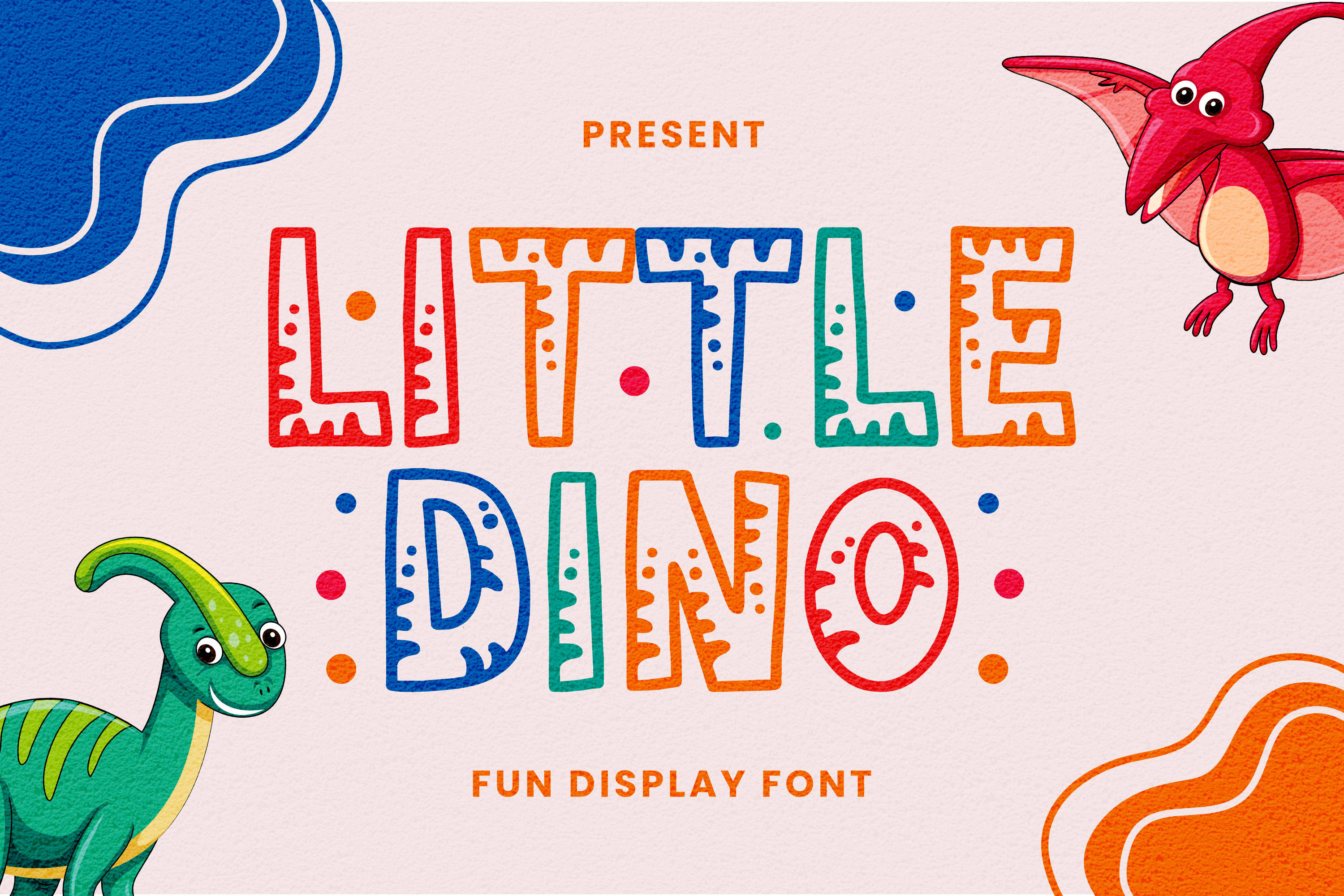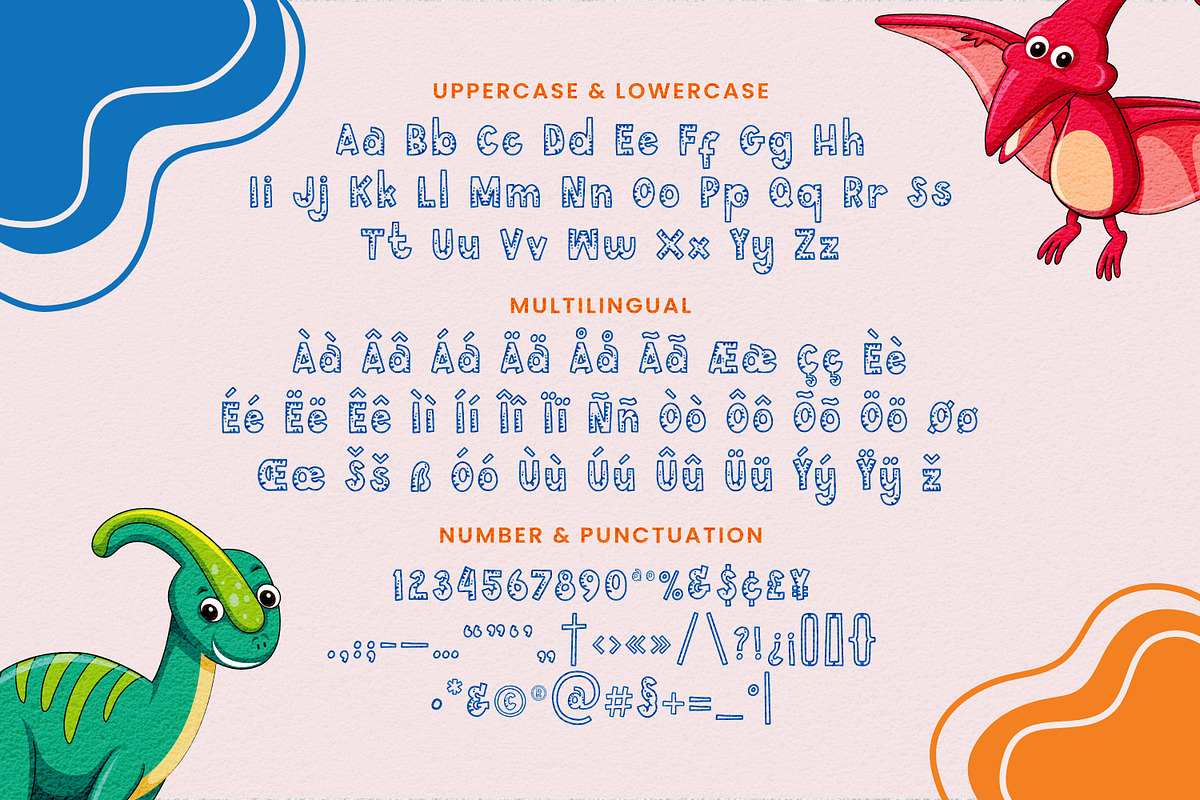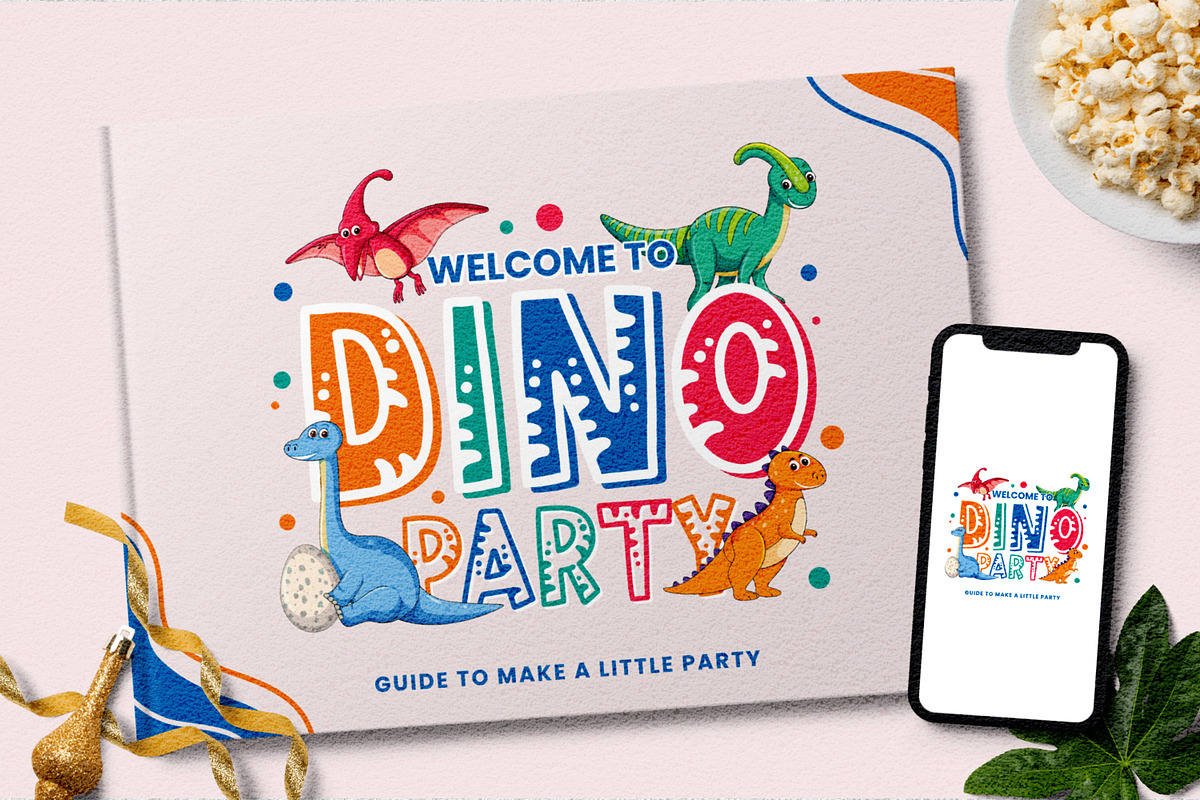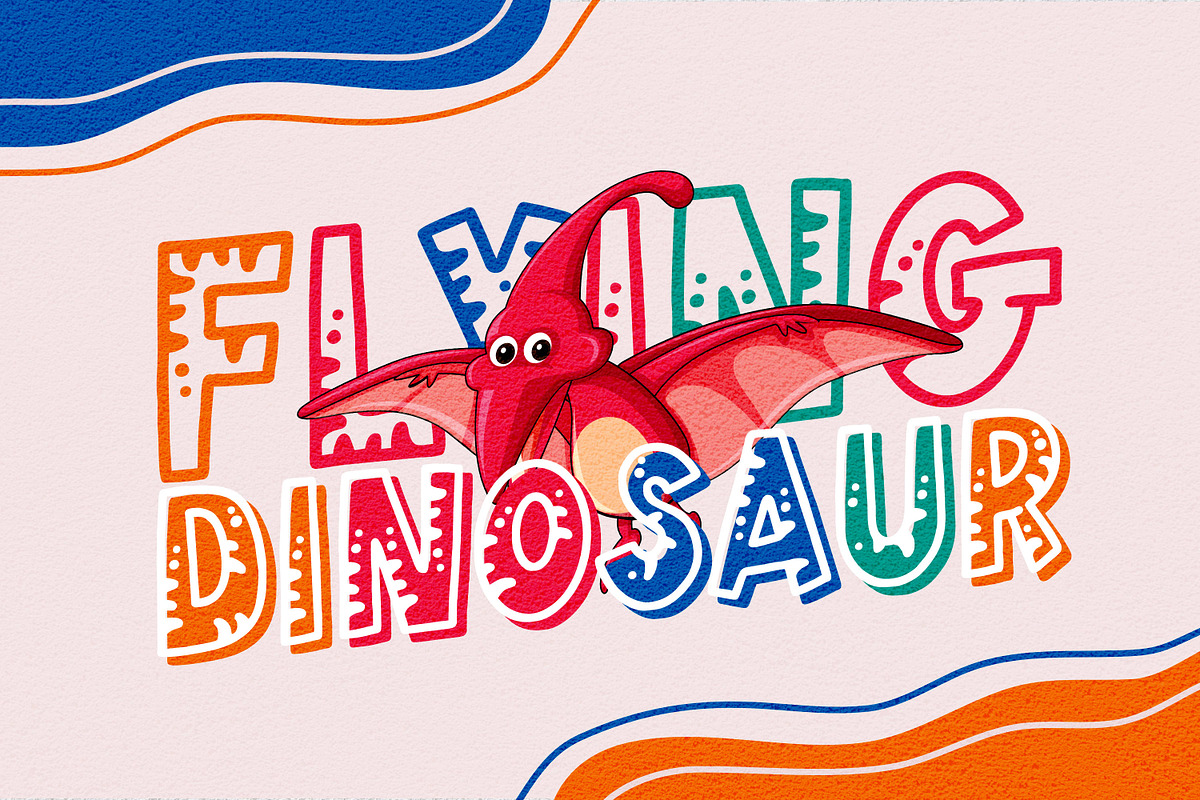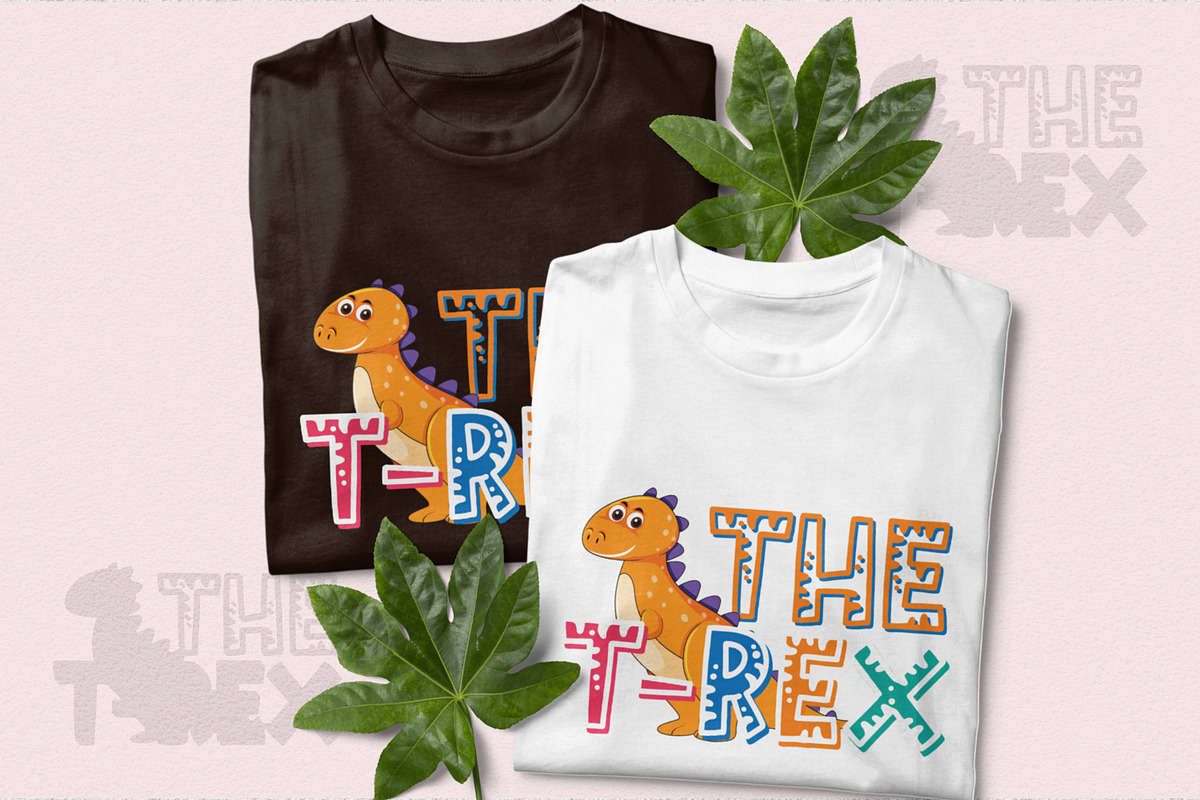
Little Dino - Fun Display Font
Roar into your next creative project with Little Dino, a fun and energetic display font that's bursting with prehistoric personality! Perfect for anything aimed at kids, this font brings a playful, hand drawn feel to your designs.
Each character has a charmingly imperfect, slightly wavy outline, reminiscent of something carved from stone or drawn with a child's enthusiastic hand. What makes this font truly special is the decorative detailing within each letter. Every character is a mini work of art, filled with a unique combination of playful patterns:
- Playful Dots: Many letters are filled with scattered dots, adding a fun, textured look.
- Quirky Lines: You'll find letters with internal horizontal lines or rugged zig-zags that give them a tribal or fossil like feel.